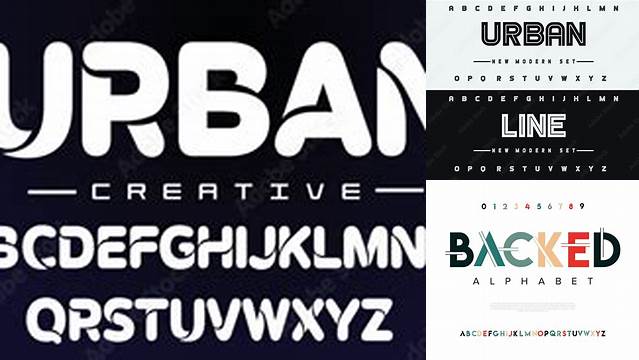
Urban Fonts: A Guide To Modern Typefaces On Adobe
Hey guys! Ever wondered how to make your designs pop with that cool, contemporary edge? It all starts with the right urban font. In this article, we're diving deep into the world of urban fonts available on Adobe, showing you how to choose the perfect typeface to give your projects that modern, street-style vibe. Whether you're working on a poster, website, or branding project, the right font can make all the difference. So, let's jump in and explore the awesome world of urban typography!
Understanding Urban Fonts
So, what exactly are urban fonts? Well, they're not just fonts found in cities! Urban fonts encapsulate the spirit of the city – think bold, edgy, and contemporary. They often draw inspiration from street art, graffiti, and industrial design, giving them a distinct, modern flair. These fonts are versatile, making them ideal for a wide range of projects, from eye-catching posters to sleek website designs. When you're looking for that authentic urban feel, consider fonts with strong, geometric shapes or those that mimic hand-painted signs. The key is to choose a font that feels both current and timeless, capturing the dynamic energy of city life. The characteristics that define urban fonts often include a strong visual presence, a touch of edginess, and a contemporary feel. These fonts can range from bold and blocky to sleek and minimalist, but they all share a common thread of modernity and a nod to the urban landscape. For instance, fonts inspired by industrial design might feature sharp angles and clean lines, while those influenced by street art could showcase a more free-flowing and expressive style. Typography plays a crucial role in shaping the visual identity of any project, and the right urban font can instantly convey a sense of modernity and sophistication. By understanding the unique characteristics of urban fonts, designers can effectively use them to create compelling and visually striking designs that resonate with their target audience. Ultimately, urban fonts are about capturing the essence of city life and translating it into a powerful visual language. They represent a departure from traditional typefaces, offering a fresh and innovative approach to typography that is both dynamic and engaging. Whether used in digital or print media, urban fonts have the ability to transform a design from ordinary to extraordinary, making them an invaluable tool in any designer's arsenal.
Top Urban Fonts on Adobe Fonts
Adobe Fonts is a treasure trove for designers, offering a vast library of typefaces, including a fantastic selection of urban fonts. Let’s highlight some of the top contenders that you should definitely check out. First up is Bebas Neue, a clean and versatile sans-serif that’s perfect for headlines and posters. Its tall, narrow letters give it a modern and impactful look. Then there's Montserrat, another sans-serif that's incredibly popular for its geometric shapes and readability. It’s ideal for both body text and headings, making it a super versatile choice. If you're looking for something with a bit more edge, consider Oswald. This font has a slightly condensed style and a bold presence, making it great for headlines and branding. For a touch of industrial flair, Roboto is a solid choice. Its mechanical forms and geometric structure give it a modern and technical feel. Lastly, don't forget Raleway, a sleek and elegant sans-serif that works beautifully for minimalist designs. Its fine lines and sophisticated style make it perfect for high-end branding and editorial projects. These are just a few examples, guys, and Adobe Fonts has so much more to offer. Exploring these fonts can help you find the perfect match for your project, whether you’re aiming for a bold statement or a subtle, contemporary touch. Experimenting with different typefaces is key to unlocking the full potential of your designs. Don't be afraid to mix and match different fonts to create unique and eye-catching compositions. Remember, the right font can elevate your design and communicate your message effectively. So, dive into the Adobe Fonts library and discover the urban fonts that resonate with your creative vision. With so many options available, you're sure to find the perfect typeface to give your projects that modern, urban edge. From bold and impactful headlines to elegant and refined body text, the possibilities are endless when you have access to such a diverse range of fonts. So, go ahead, explore, and let your creativity flow.
How to Choose the Right Urban Font
Choosing the right urban font can feel like a daunting task, but don't worry, we've got you covered! The key is to consider your project's specific needs and the overall message you want to convey. Start by thinking about the mood and tone you're aiming for. Do you want something bold and edgy, or sleek and sophisticated? For a bold and edgy look, consider fonts with strong, geometric shapes and a bit of a rebellious vibe. These fonts are perfect for posters, flyers, and anything that needs to grab attention. On the other hand, if you're going for a sleek and sophisticated feel, opt for fonts with clean lines and a minimalist design. These are great for high-end branding and editorial projects. Next, think about readability. While some urban fonts look fantastic, they might not be the best choice for large blocks of text. For body text, you'll want something that's easy to read and doesn't strain the eyes. Sans-serif fonts like Montserrat and Roboto are excellent choices for readability. Another important factor to consider is the font's versatility. Can it be used in a variety of contexts, or is it only suitable for specific projects? A versatile font can save you time and effort in the long run. Finally, don't be afraid to experiment! Try out different fonts and see what works best for your project. Mixing and matching fonts can also create interesting visual effects. But remember, it’s important to ensure the fonts complement each other rather than clash. This involves considering factors like x-height, stroke contrast, and overall style. A good practice is to pair a bold display font with a more neutral and readable body font to create a balanced and harmonious design. Additionally, pay attention to the font's licensing terms, especially if you're using it for commercial projects. Adobe Fonts offers clear licensing information, so be sure to check the details before using a font in your work. By considering these factors and taking the time to explore different options, you can confidently choose the perfect urban font to elevate your design and communicate your message effectively. The right font can make all the difference in the success of your project, so choose wisely!
Using Urban Fonts in Your Designs
Okay, so you've picked out the perfect urban font – awesome! Now, let's talk about how to use it effectively in your designs. The first rule of thumb is to use fonts sparingly. Too many different fonts can make your design look cluttered and confusing. Stick to a maximum of two or three fonts per project. A common approach is to use one font for headings and another for body text. This creates a clear visual hierarchy and makes your design easier to read. When using urban fonts, consider the context of your design. Are you creating a poster for a music event, a website for a tech company, or a logo for a streetwear brand? The font you choose should align with the overall style and message of your project. For example, a graffiti-inspired font might be perfect for a music poster but less suitable for a corporate website. Pay attention to the font's size and spacing. The size of the font should be appropriate for the medium you're using – a font that looks great on a poster might be too small on a website. Similarly, the spacing between letters and lines can significantly impact readability. Adjust the kerning (the space between individual letters) and the leading (the space between lines) to ensure your text is clear and easy to read. Experiment with different font weights and styles. Many urban fonts come in a variety of weights, from light to bold. Using different weights can add visual interest and help you create emphasis. Additionally, consider using italics or other styles to highlight key words or phrases. Don't be afraid to break the rules, but do it intentionally. While there are some general guidelines for using fonts, the best way to learn is by experimenting. Try out different combinations and see what works best for your project. Remember, the goal is to create a design that is both visually appealing and effective in communicating your message. In addition to the technical aspects, also consider the emotional impact of your font choice. Fonts have the power to evoke certain feelings and associations. A bold, sans-serif font might convey a sense of strength and modernity, while a more playful, handwritten font could evoke warmth and creativity. Choose a font that resonates with the intended audience and reinforces the overall message of your design. By carefully considering these factors, you can use urban fonts to create impactful and memorable designs that stand out from the crowd.
Tips for Pairing Urban Fonts
Pairing urban fonts can be a bit of an art, but with a few tips and tricks, you can create stunning typographic combinations. The key to successful font pairing is to create contrast while maintaining harmony. Think of it like putting together an outfit – you want pieces that complement each other without being too matchy-matchy. One of the easiest ways to pair fonts is to combine a bold display font with a more neutral body font. A display font is typically used for headlines and titles, while a body font is used for larger blocks of text. This creates a clear visual hierarchy and makes your design easier to read. For example, you might pair a bold sans-serif like Oswald with a more understated sans-serif like Roboto for the body text. This combination provides a strong visual contrast while maintaining a consistent style. Another approach is to pair fonts from different classifications, such as a sans-serif with a serif. However, this can be tricky to pull off, so it's important to choose fonts that have some common characteristics. For instance, you might pair a modern sans-serif like Montserrat with a clean serif like Playfair Display. The key is to look for fonts that share similar proportions or stroke weights. You can also pair fonts within the same family but with different weights and styles. Many urban fonts come in a variety of weights, from light to bold, as well as italic and condensed versions. Using different weights and styles from the same font family can create visual interest without overwhelming your design. For example, you might use the bold weight of a font for headings and the regular weight for body text. Pay attention to the x-height of the fonts you're pairing. The x-height is the height of the lowercase letters in a font. If the x-heights of two fonts are significantly different, they may not pair well together. Look for fonts with similar x-heights to create a more harmonious combination. Use online resources and tools to help you find font pairings. There are many websites and apps that offer suggestions for font pairings based on different styles and moods. These can be a great source of inspiration and help you discover new combinations. Finally, trust your instincts and experiment. The best way to learn font pairing is by trying out different combinations and seeing what works best for your project. Don't be afraid to break the rules and create something unique. With practice, you'll develop a sense for what font pairings work well together and how to create visually stunning typography. Remember, the goal is to create a cohesive and balanced design that effectively communicates your message.
So there you have it, guys! A deep dive into the world of urban fonts on Adobe. From understanding what makes a font urban to choosing the right one for your project and pairing them effectively, we've covered it all. Remember, the right font can transform your design from ordinary to extraordinary, giving it that modern, edgy vibe you're looking for. Adobe Fonts offers a fantastic range of options, so get out there, explore, and unleash your creativity! Whether you're working on a poster, website, or branding project, the perfect urban font is waiting to be discovered. Happy designing!